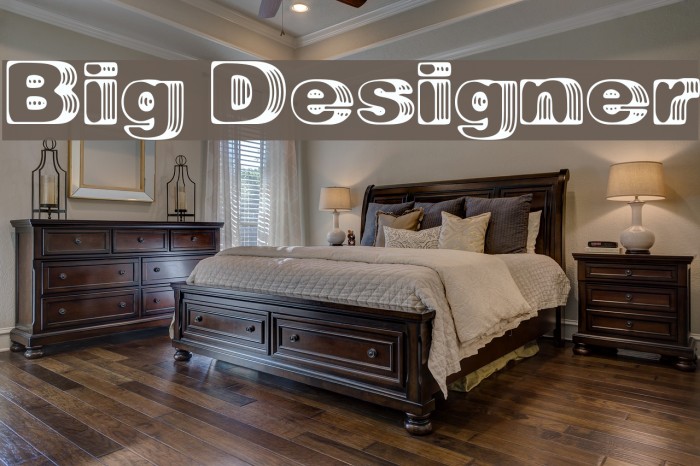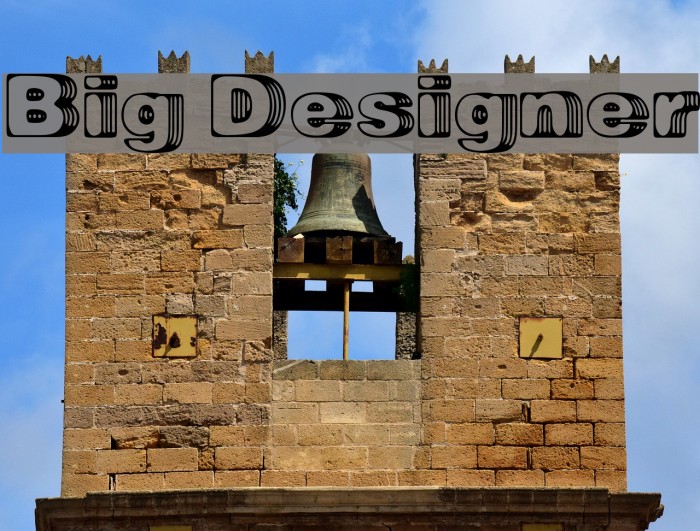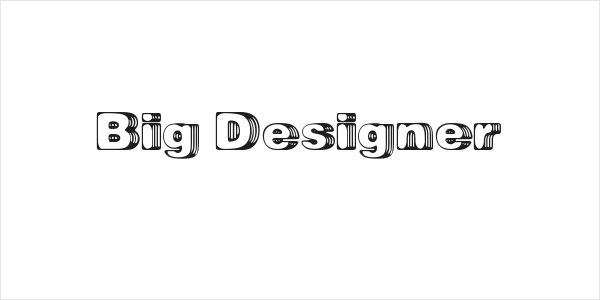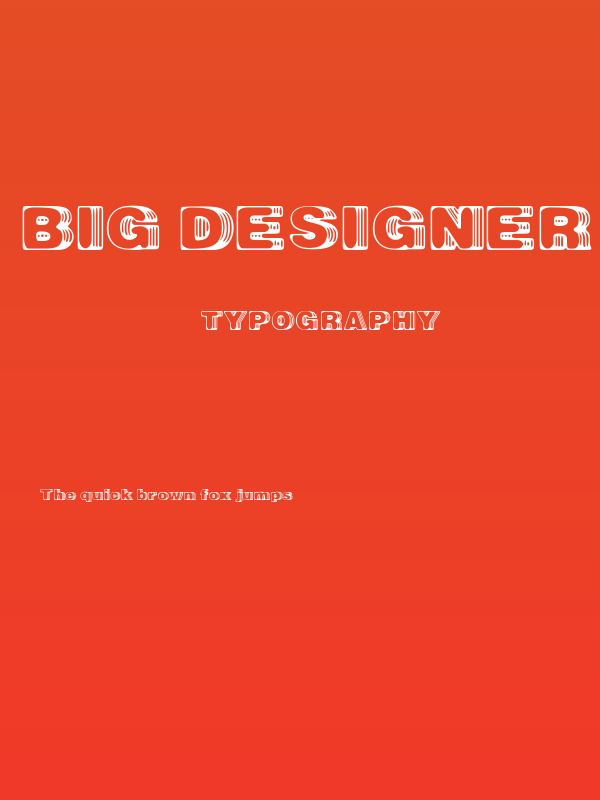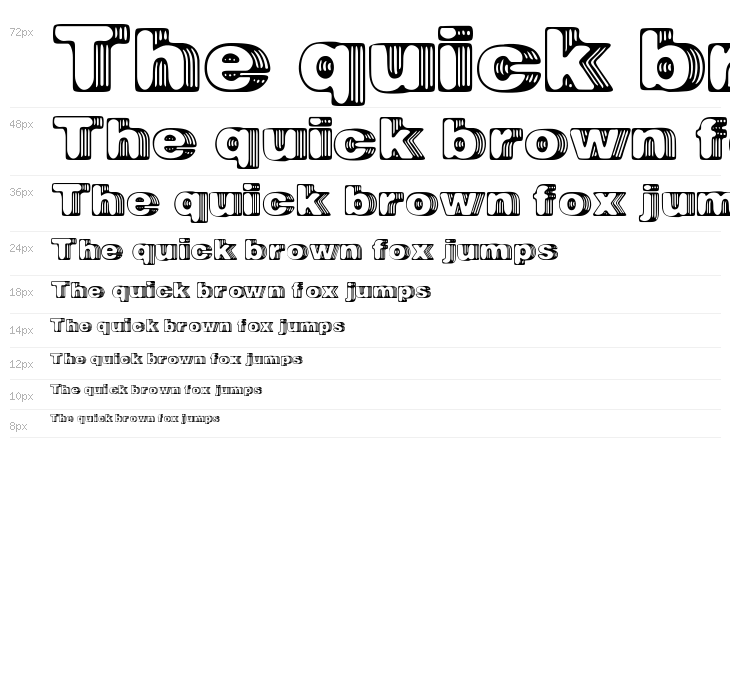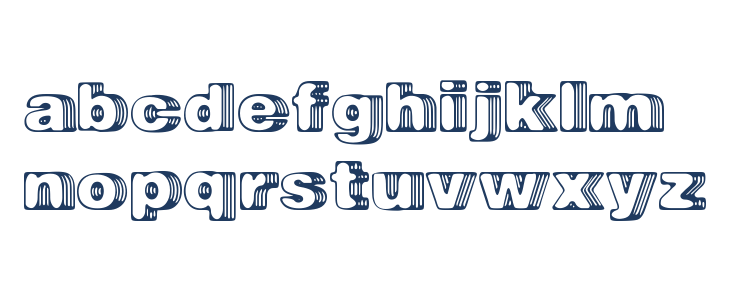
Big Designer Font
Big Designer Description
This font features a bold, three-dimensional style with a playful and eye-catching design. Each character is outlined with a thick, black border, creating a sense of depth and shadow. The interior of the letters is filled with horizontal lines, adding texture and a unique visual interest. The font is highly decorative and stands out due to its intricate detailing and strong presence. It is particularly suitable for projects that require a fun and engaging aesthetic, such as posters, advertisements, or branding materials. The characters are well-spaced, ensuring readability while maintaining their distinctive style.
| Proposed Projects | Ideal for posters, advertisements, branding, and any project needing a playful, eye-catching design. |